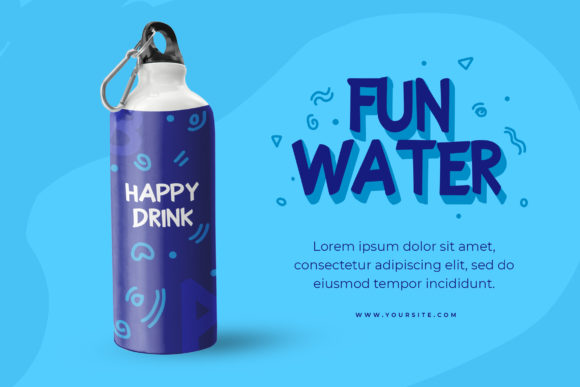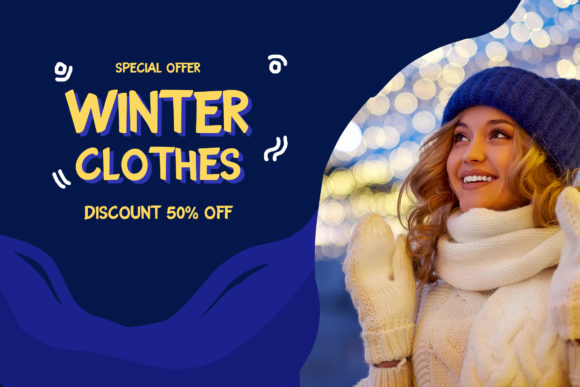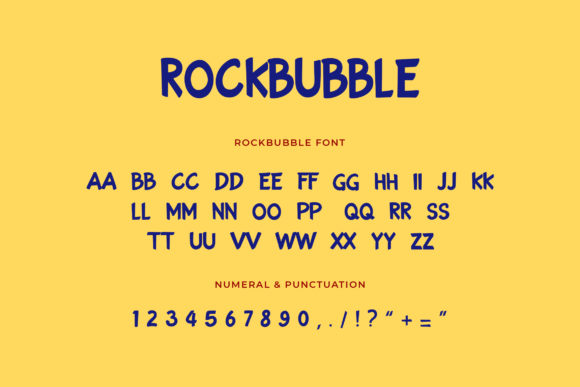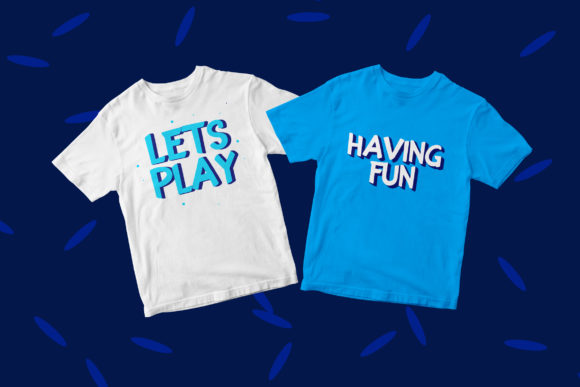
Introduction to Rockbubble Font
Do you remember the excitement of creating a colorful poster for your school project, or designing a birthday card for a loved one? The world of design is full of creative moments like these, where imagination knows no bounds. And that’s exactly what makes the Rockbubble Font so special – it’s the perfect companion for any creative project that needs a playful touch.
With its friendly and approachable style, Rockbubble Font is an ideal design resource for designers looking to add a personal touch to their work. Whether you’re working on a school project or creating a marketing campaign for kids, this high-quality font is sure to bring a smile to your audience’s faces. Plus, with a transparent background, you can easily integrate it into your designs without any hassle.
Key Features of Rockbubble Font
- Unique, hand-drawn style with a rock-inspired aesthetic, perfect for music-related designs.
- Includes a transparent background, making it easy to layer with other design elements.
Honest Review: Rockbubble Font
I recently stumbled upon the Rockbubble Font, a free download that has been making waves in the design community. As a designer, I was excited to dive in and see what it had to offer.
What works well: ✨ The Rockbubble Font is incredibly versatile, making it a great resource for creative projects that require a modern and edgy look. The font is also highly customizable, allowing designers to tweak the style to fit their unique vision. The transparent background option is also a huge plus, making it easy to integrate with any design.
What doesn’t work so well: ⚠️ While the font is free to download, it’s not without its limitations. The character set is a bit limited, which may be a problem for designers working on projects that require a wide range of characters. Additionally, the font may not be suitable for body text, as it can be a bit difficult to read in large quantities.
Overall, I’m impressed with the Rockbubble Font. It’s a great addition to any design resource library, and I can see it being a go-to choice for designers working on high-quality creative projects. While it may have some limitations, it’s a great starting point for designers looking to add some edge to their work.
- Modern and edgy design
- Great for creative projects
Tips for Getting the Most Out of Rockbubble Font
Use the Rockbubble Font on a transparent background to create a unique and eye-catching design. Experiment with different font sizes and styles to add visual interest to your creative project. Consider using the Rockbubble Font in combination with other design elements, such as images and graphics, to create a cohesive and engaging design.
Common Use Cases for Rockbubble Font
The Rockbubble Font is commonly used in a variety of design applications, including social media graphics, business cards, and presentations. Its unique and playful style makes it a popular choice for creative projects, and its high-quality design ensures that it looks great on a variety of backgrounds and devices.